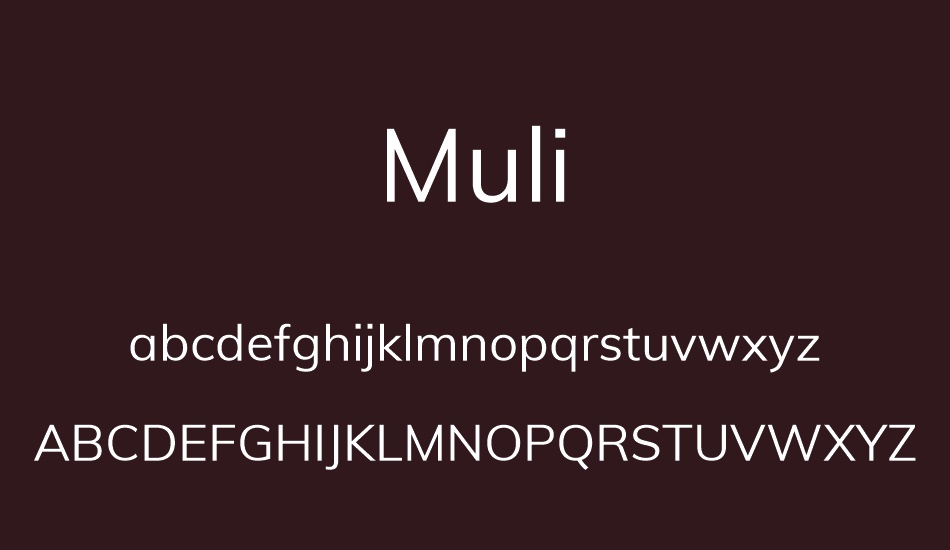
Web muli is designed mainly for use as a display font but is useable as a text font too. The muli black font was designed by vernon adams. Web muli font download muli is the perfect font for all your fun designs.
The muli regular font was designed by vernon adams. Font manufacturer is vernon adams. Once it is in your system, you can make use of the.
It exudes a carefree and naive appearance. It was initially drawn in 2011 by vernon adams and then refined until. Web muli is designed mainly for use as a display font but is useable as a text font too.
Web mali is a thai and latin family which was inspired by a 6th graders' handwriting. It is sans serif font and has 4 styles. Use the text generator tool below to preview muli.